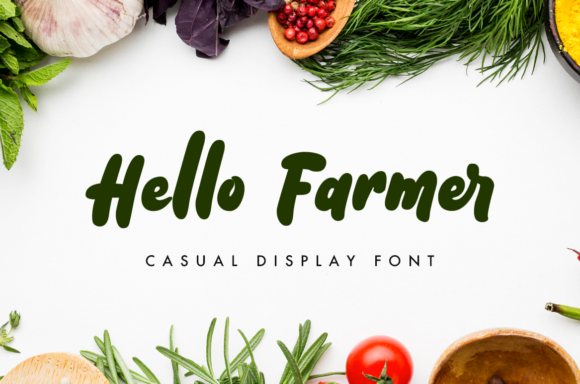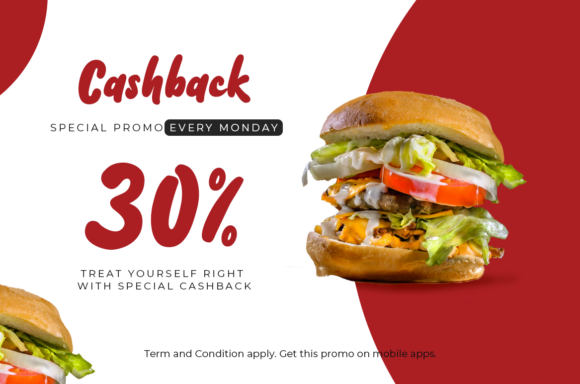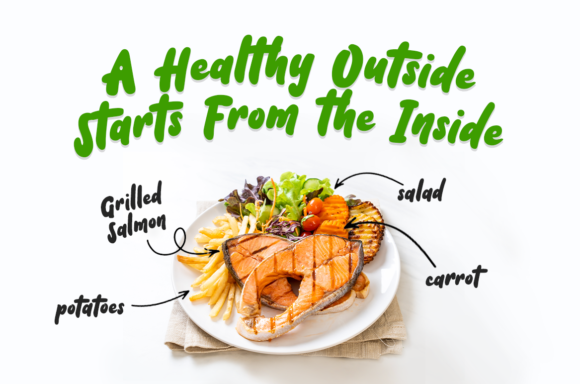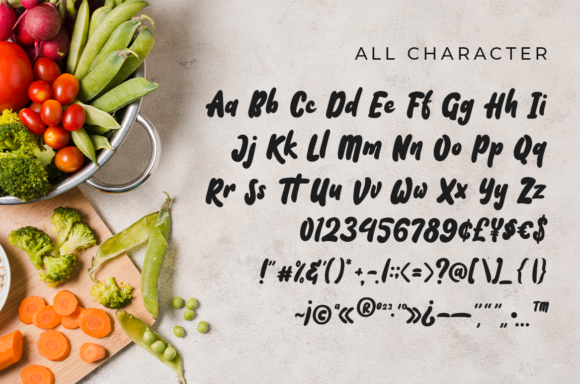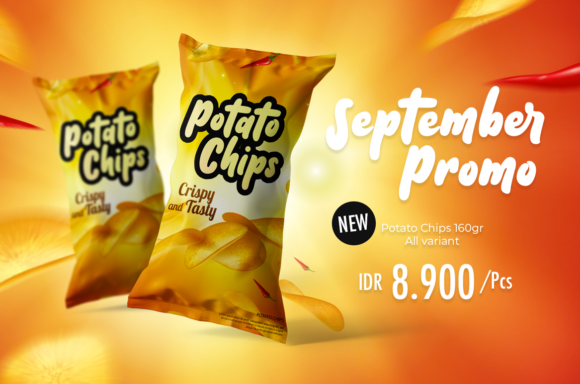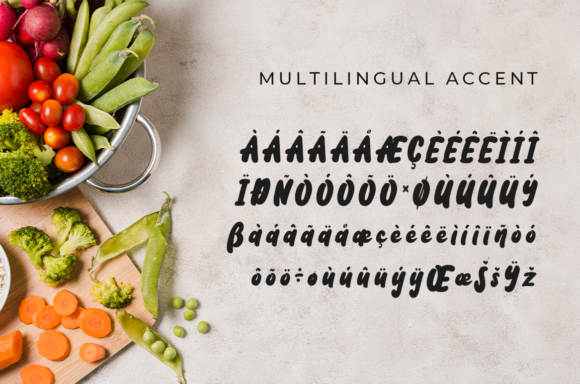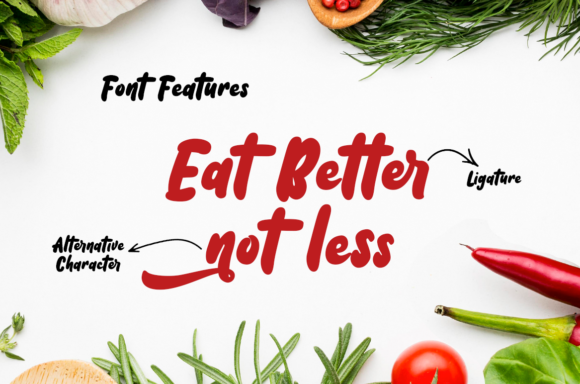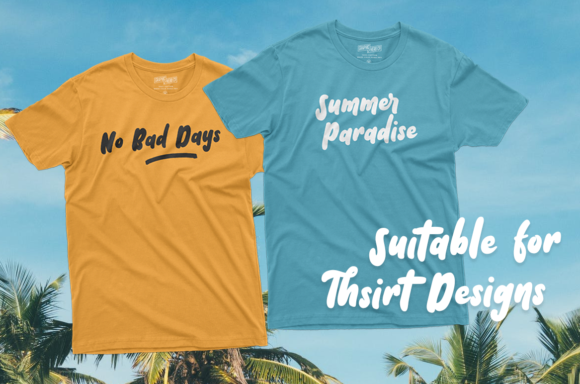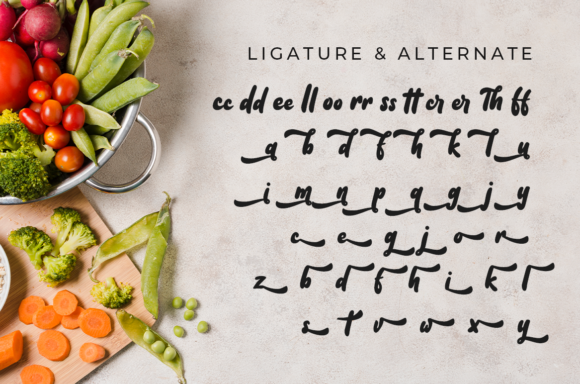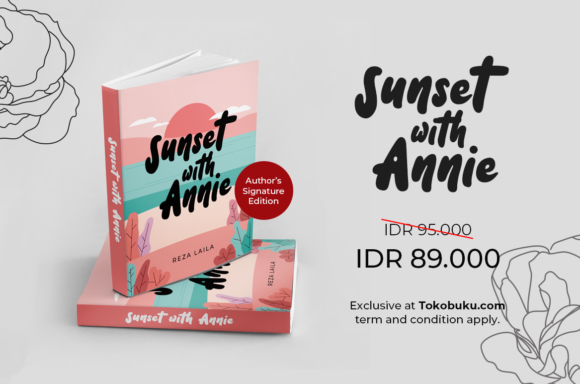
Hello Farmer Font
About Hello Farmer Font
Hello Farmer is a cute and childish handwritten font. It is suitable for promotional designs, labels, packaging, branding, logotypes and much more.